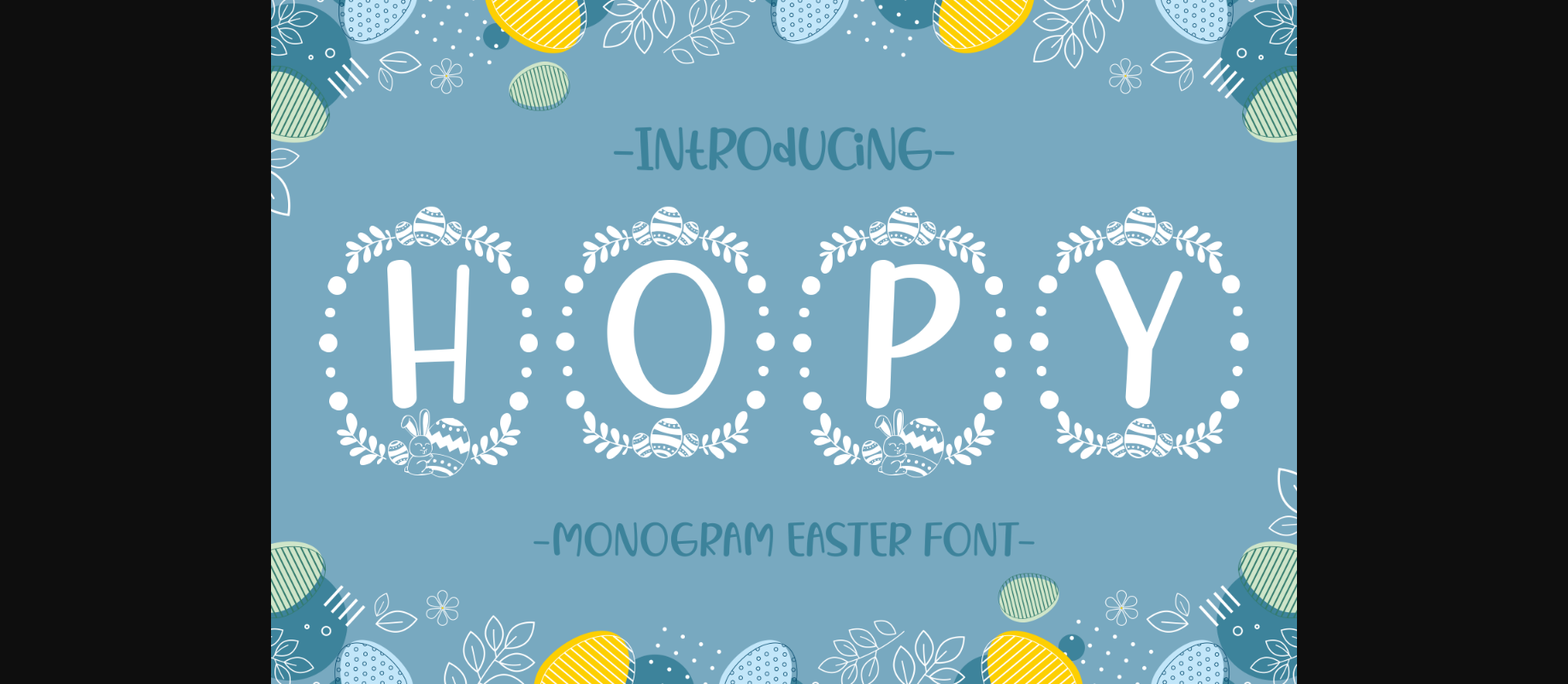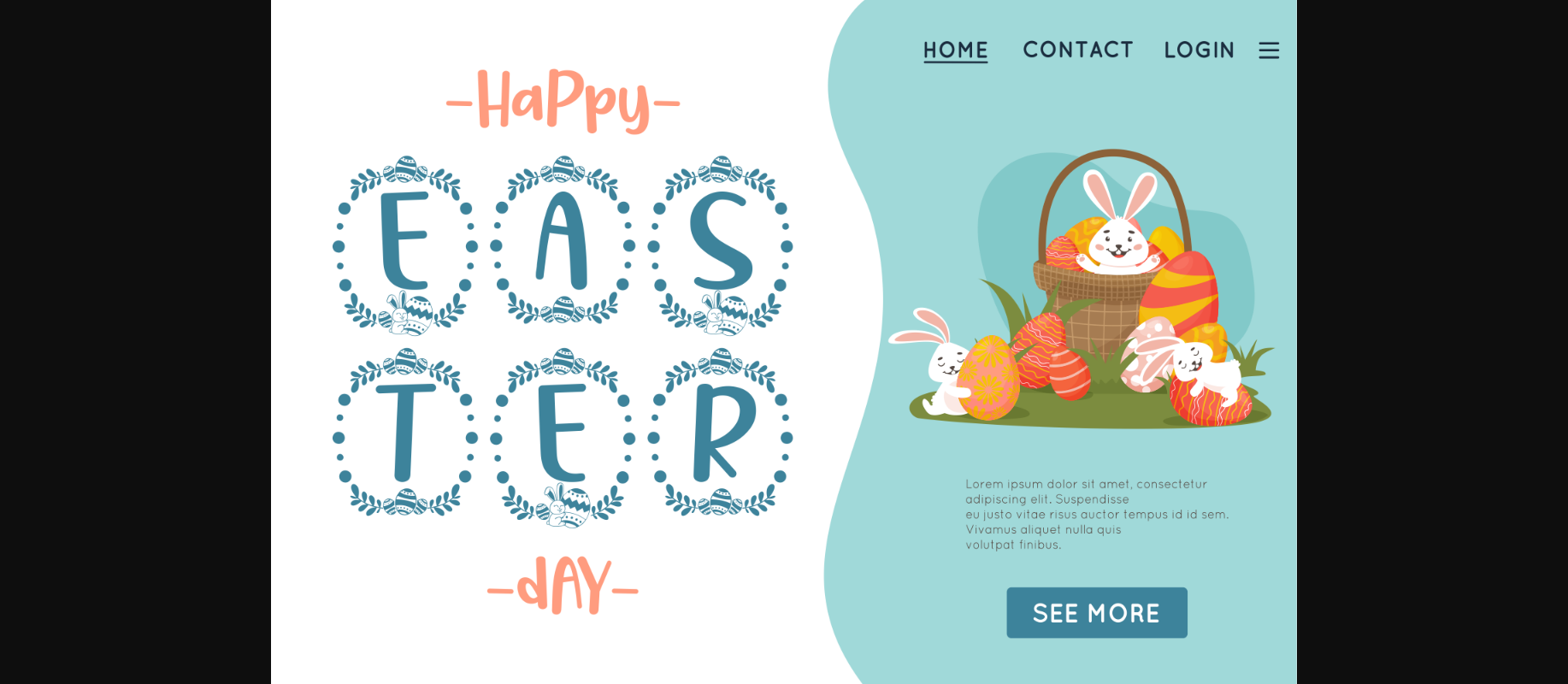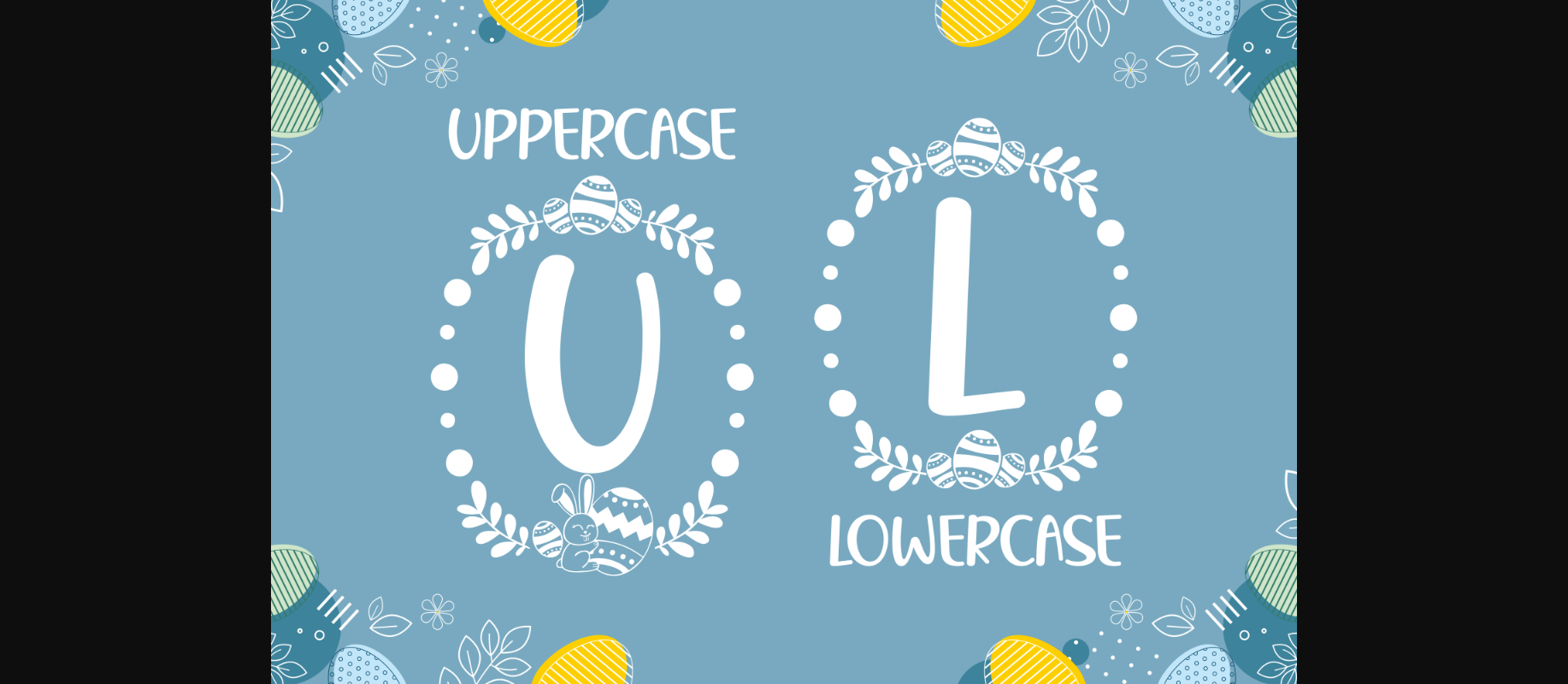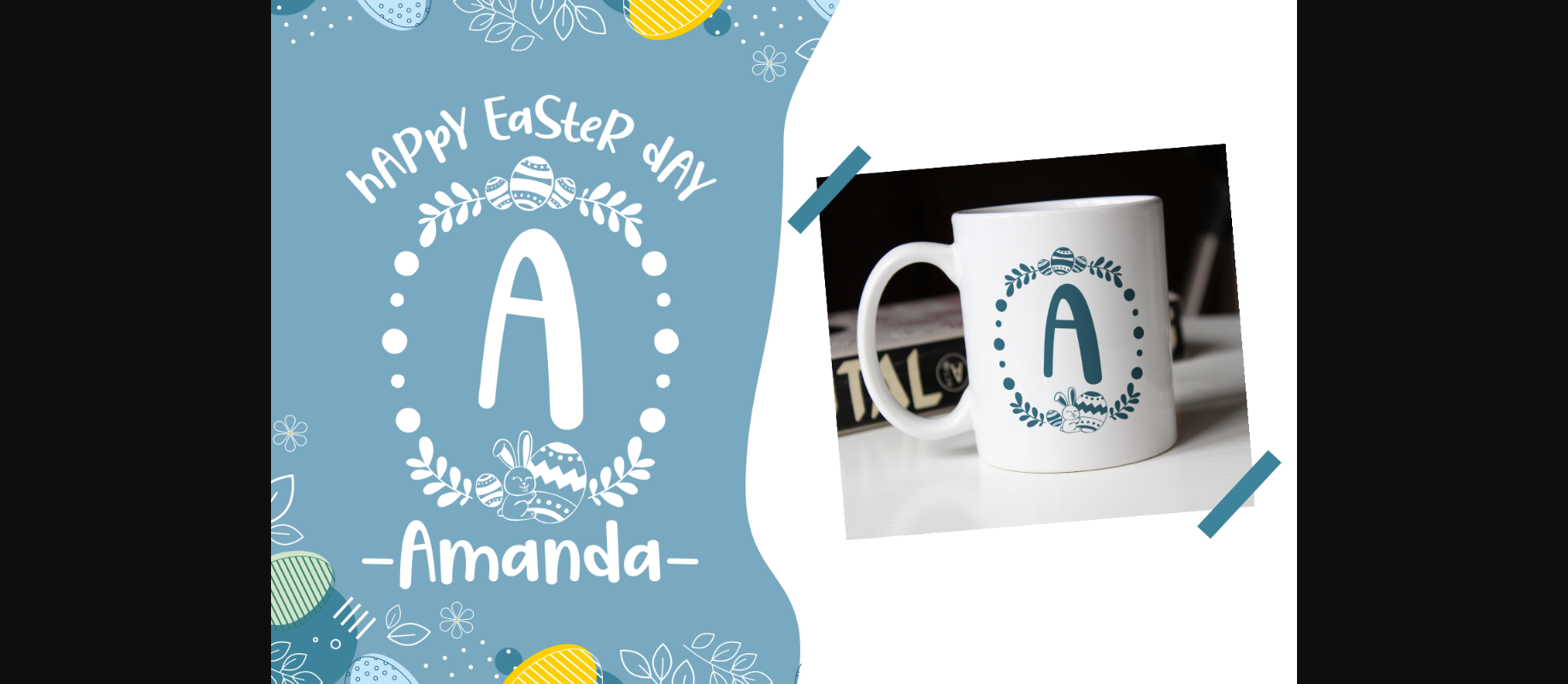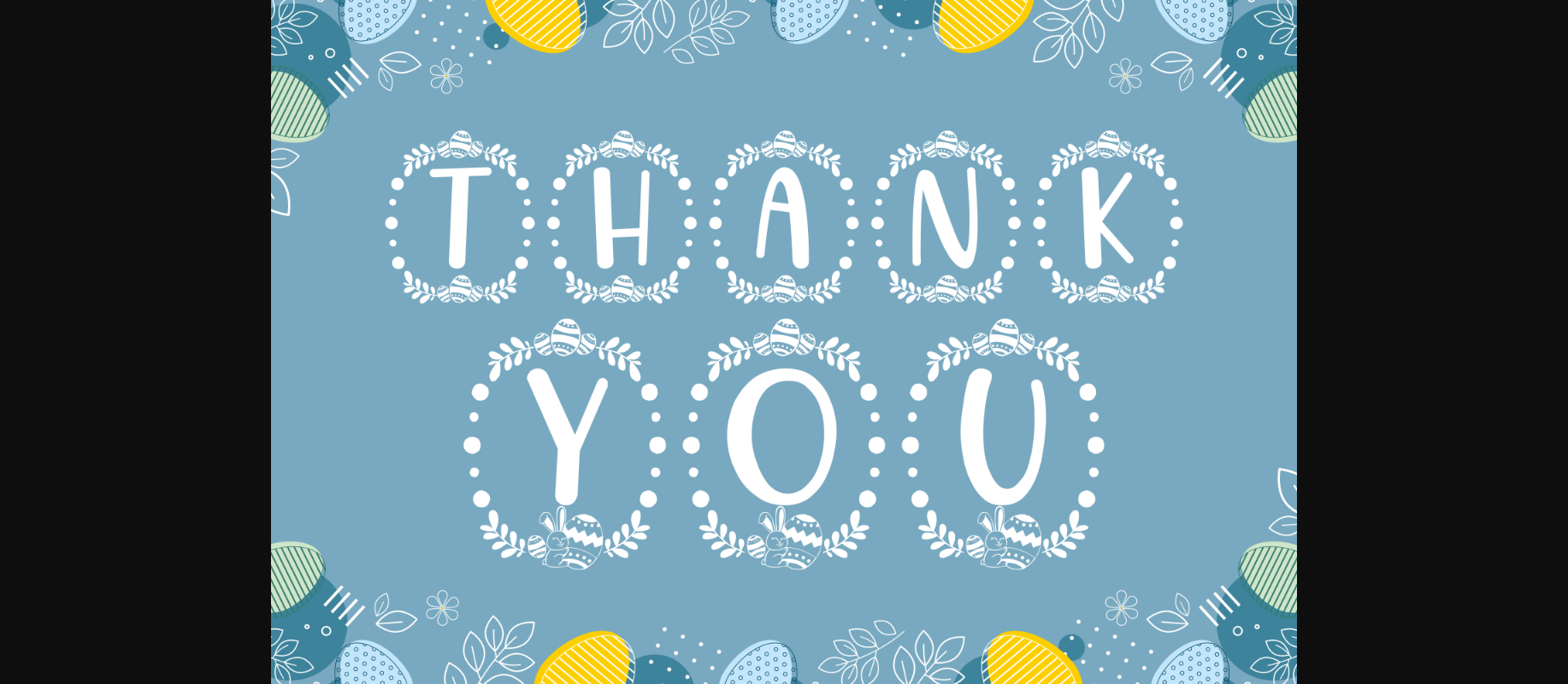
Hopy Font
About Hopy Font
Hopy is a cool, light and friendly decorative font. Simple but with a strong visual effect, this font will instantly make your creation more appealing than any others.